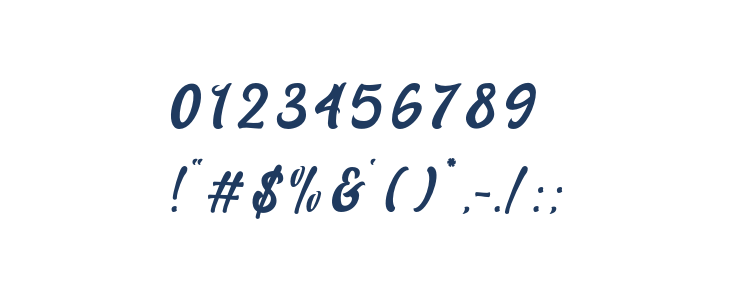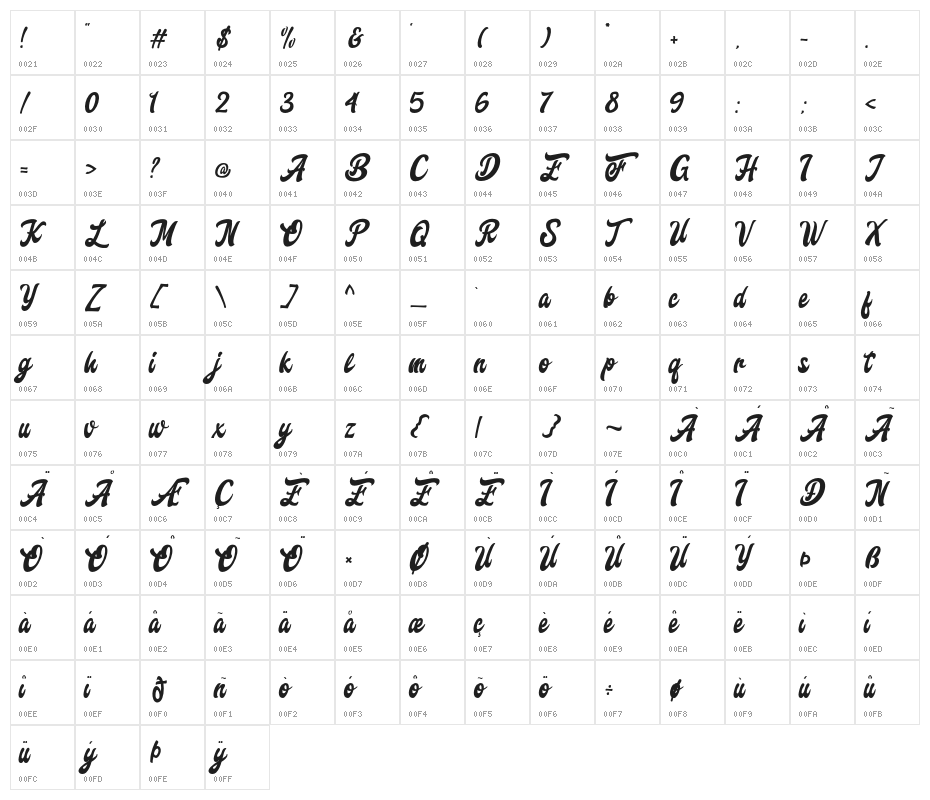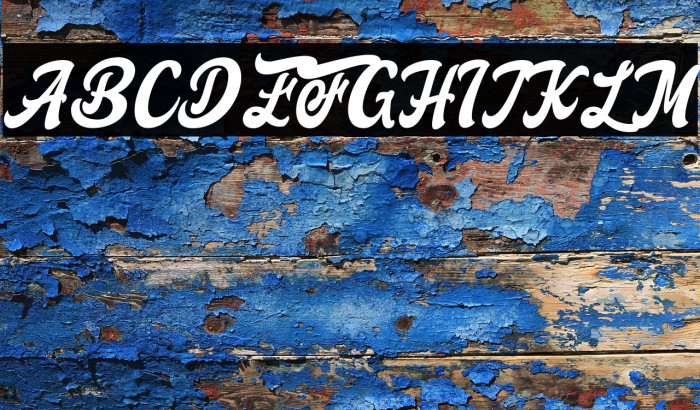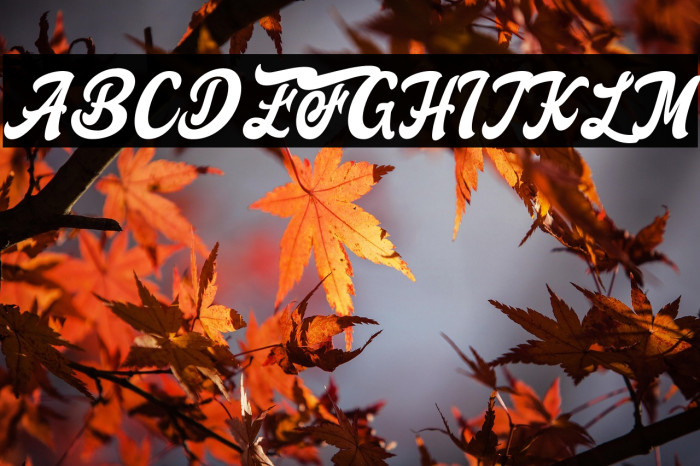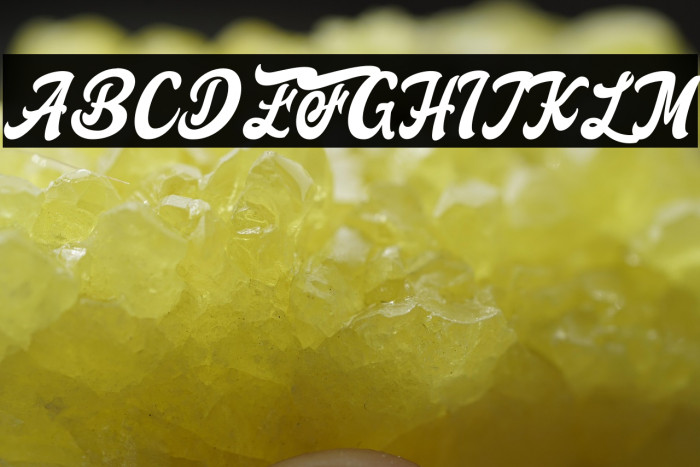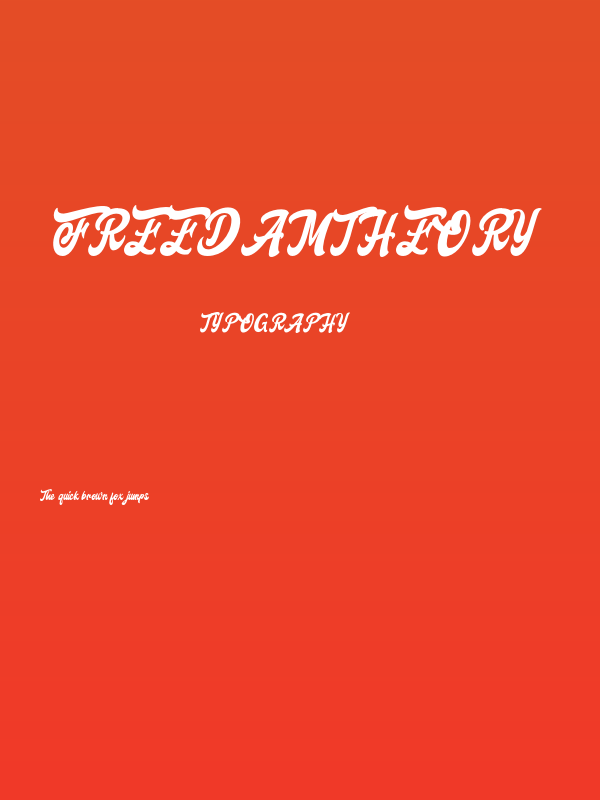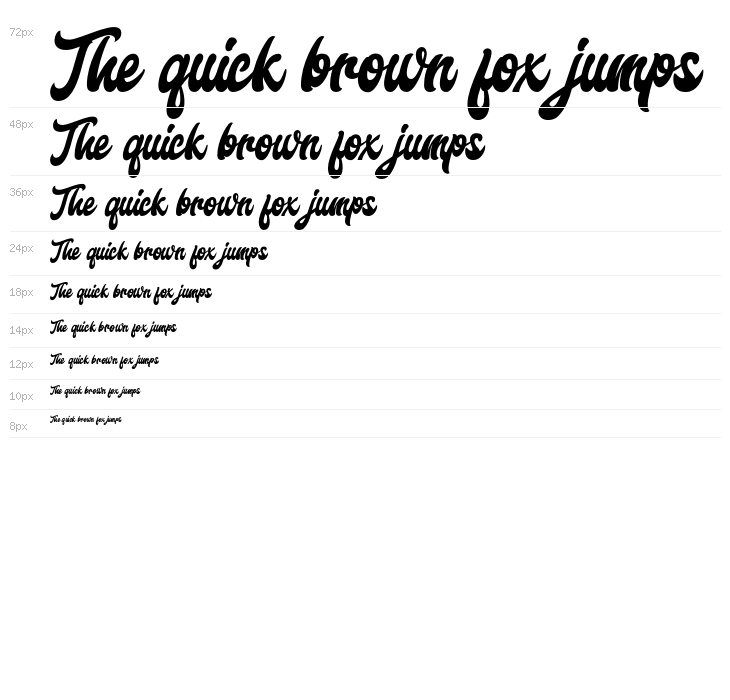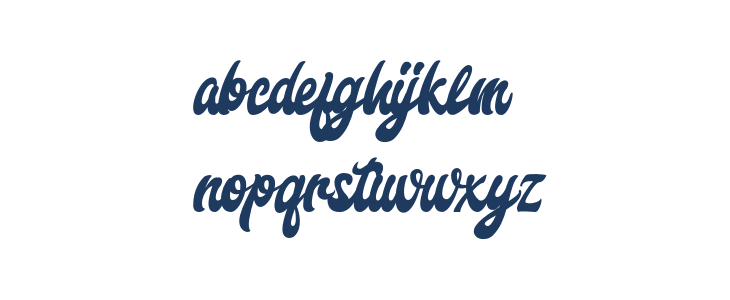
FreedamTheory Font
FreedamTheory Description
This font showcases a bold and dynamic script style, characterized by its flowing and interconnected letterforms. The uppercase letters exhibit a sense of elegance with their sweeping curves and pronounced flourishes, while the lowercase letters maintain a consistent rhythm and fluidity. The numerals are designed with a similar flair, ensuring a cohesive look across all characters. Special characters are thoughtfully integrated, maintaining the overall aesthetic. The font's boldness and high contrast in stroke thickness contribute to its striking appearance, making it suitable for attention-grabbing designs.
| Proposed Projects | Ideal for branding, invitations, greeting cards, and any project requiring a touch of elegance and flair. |